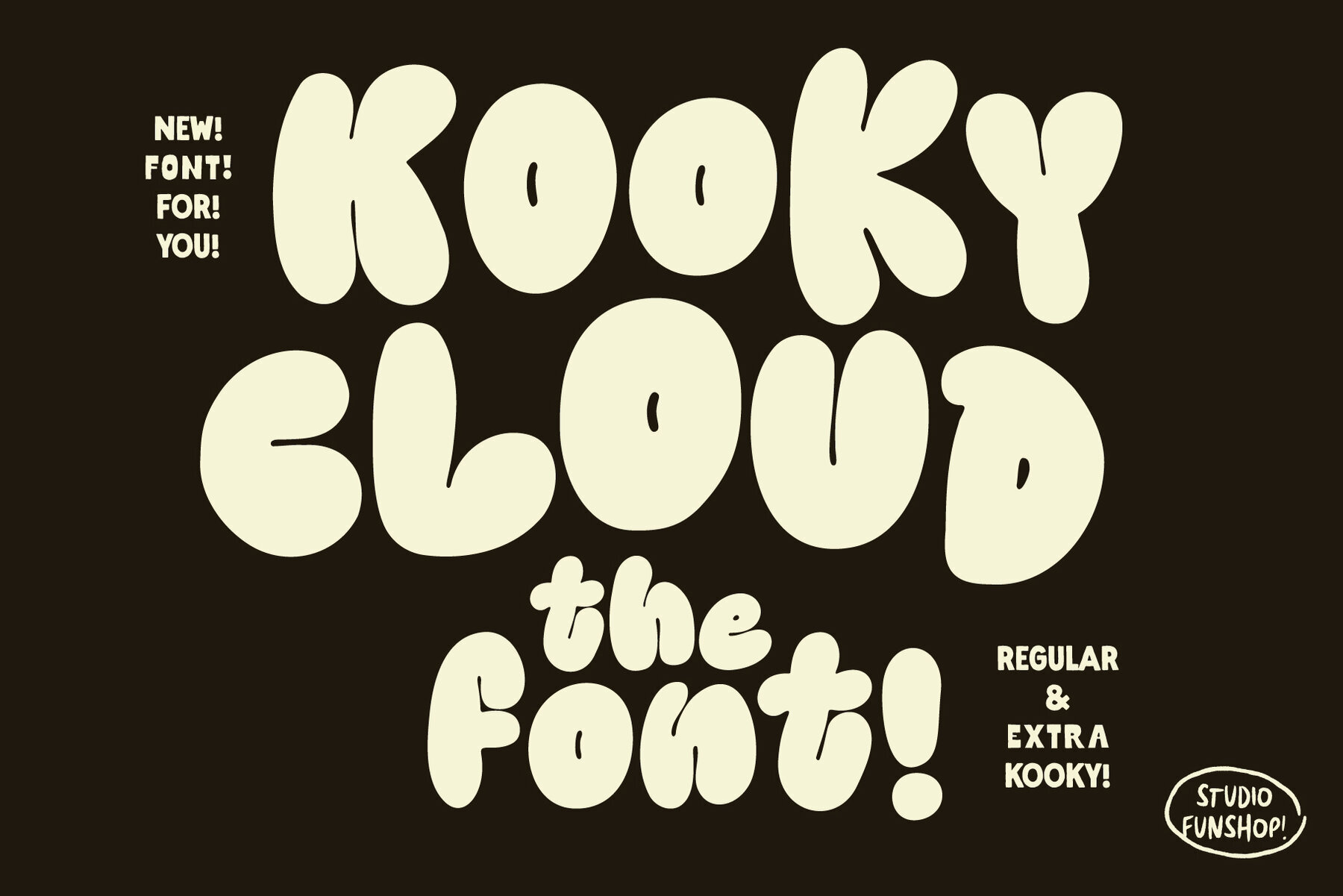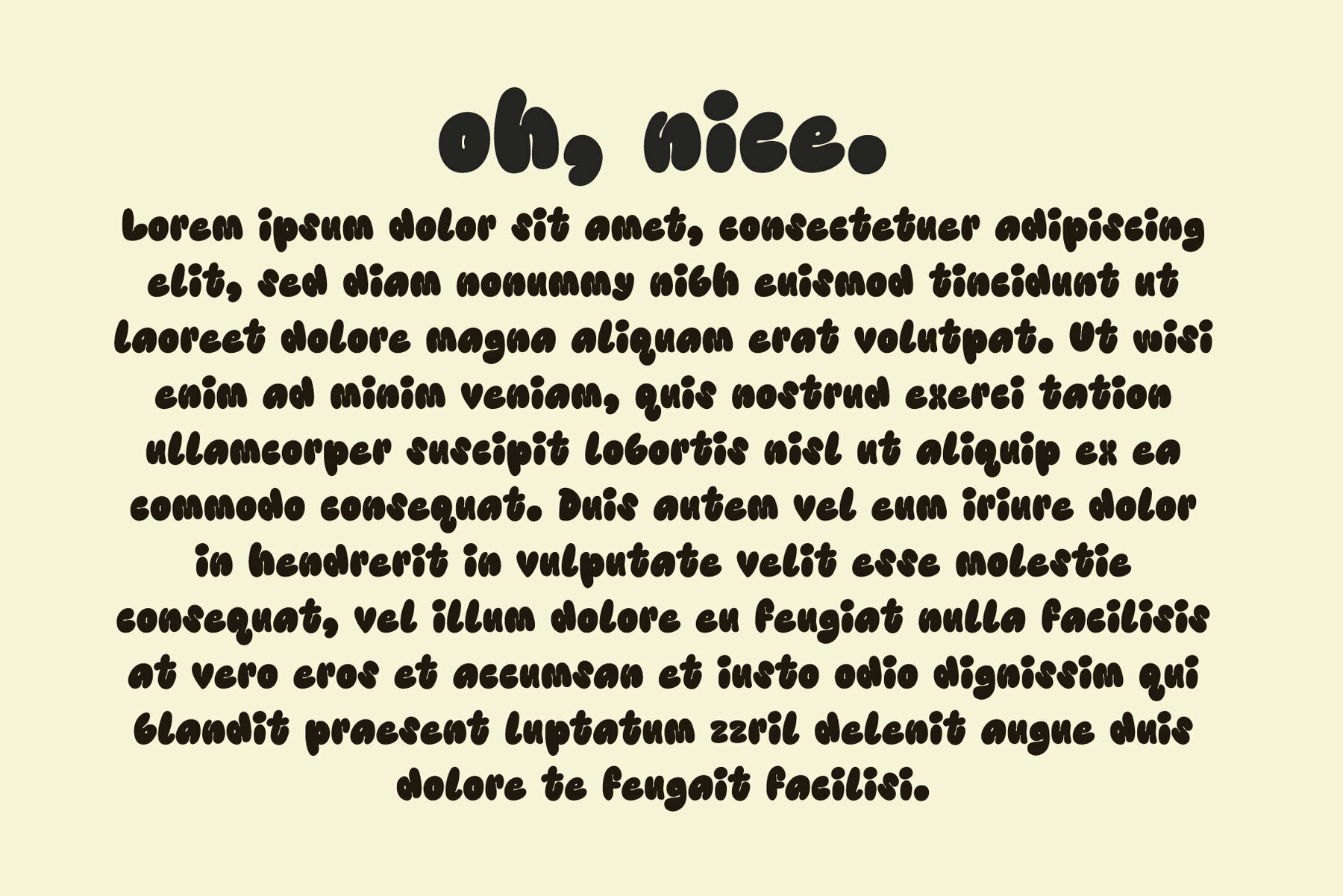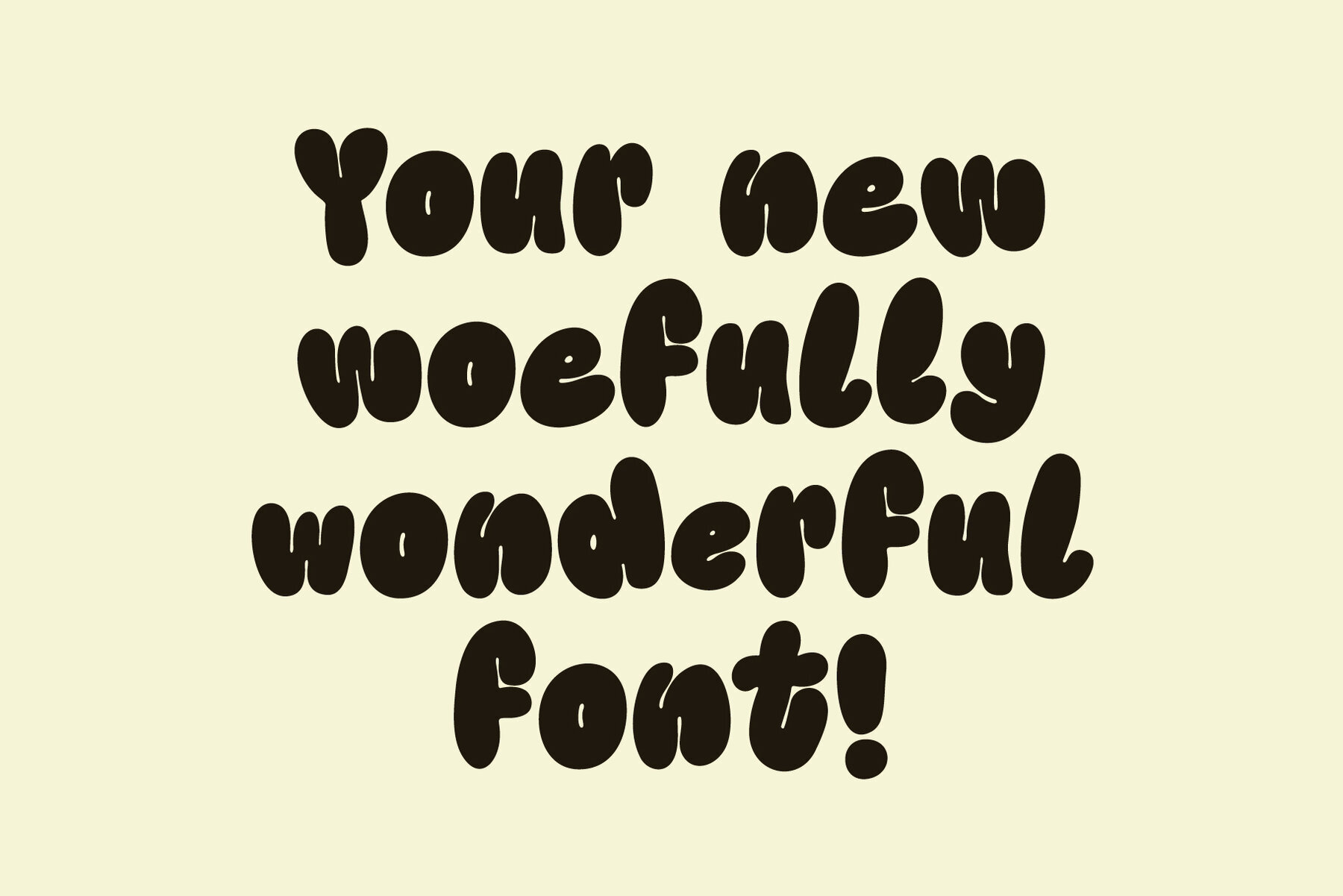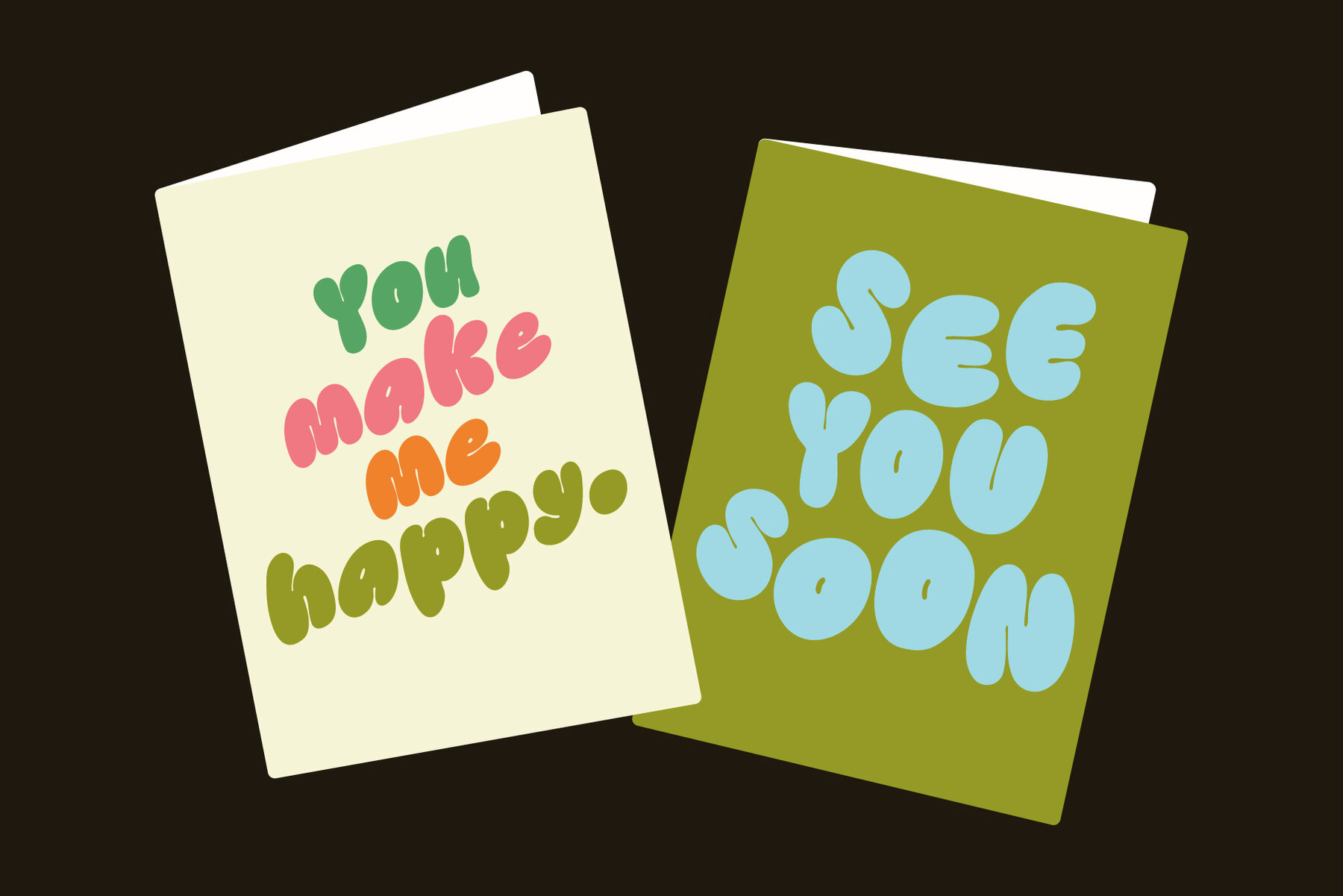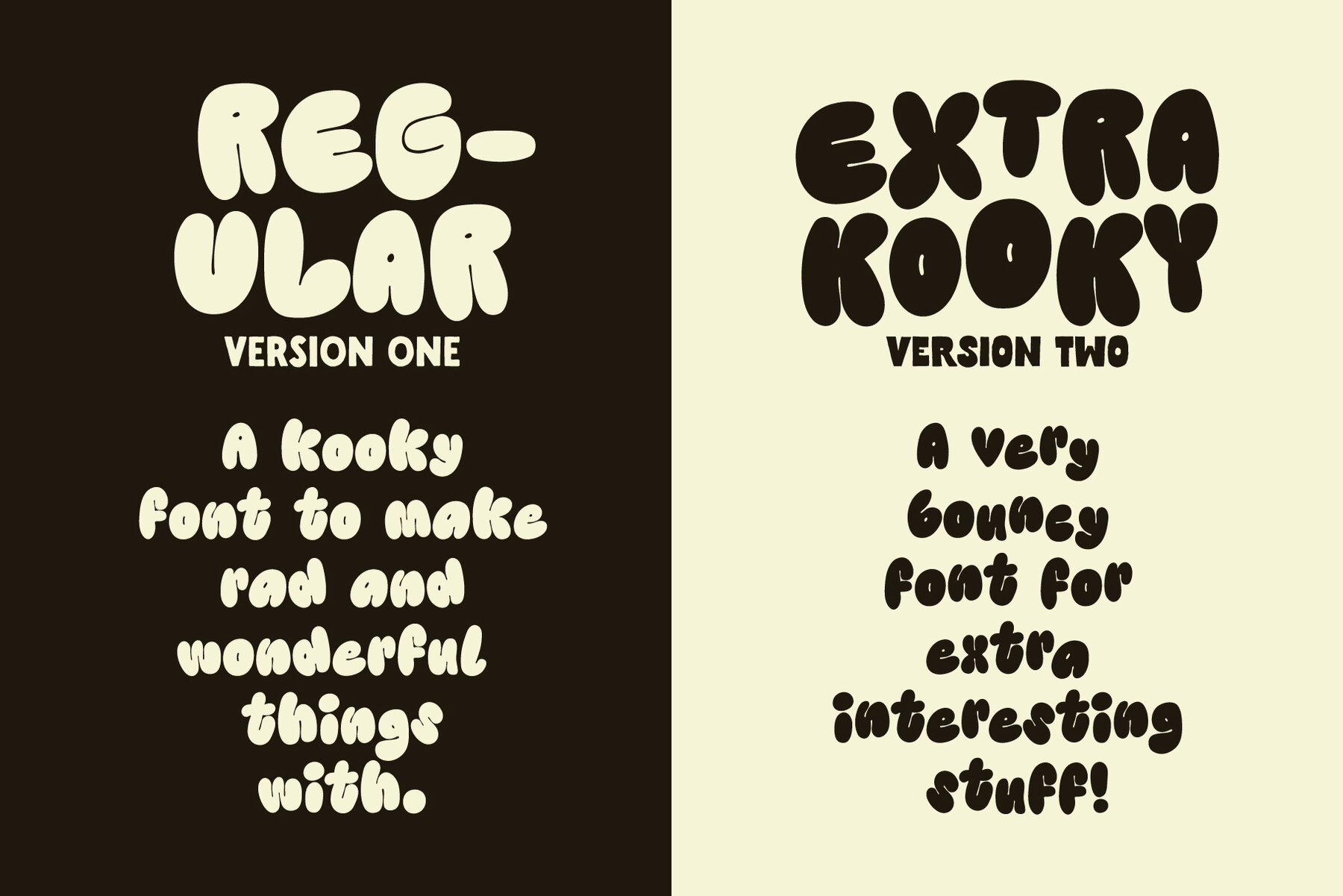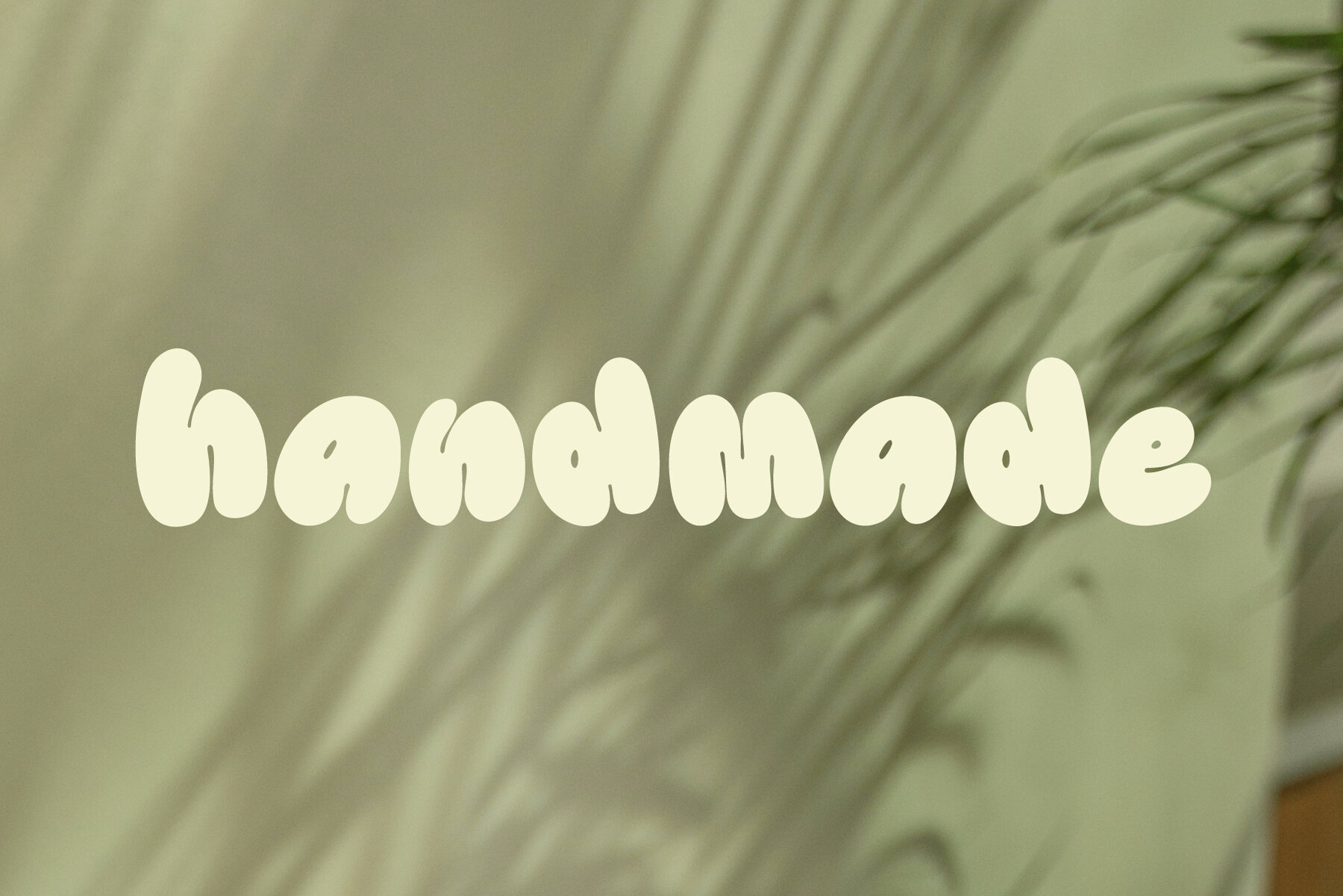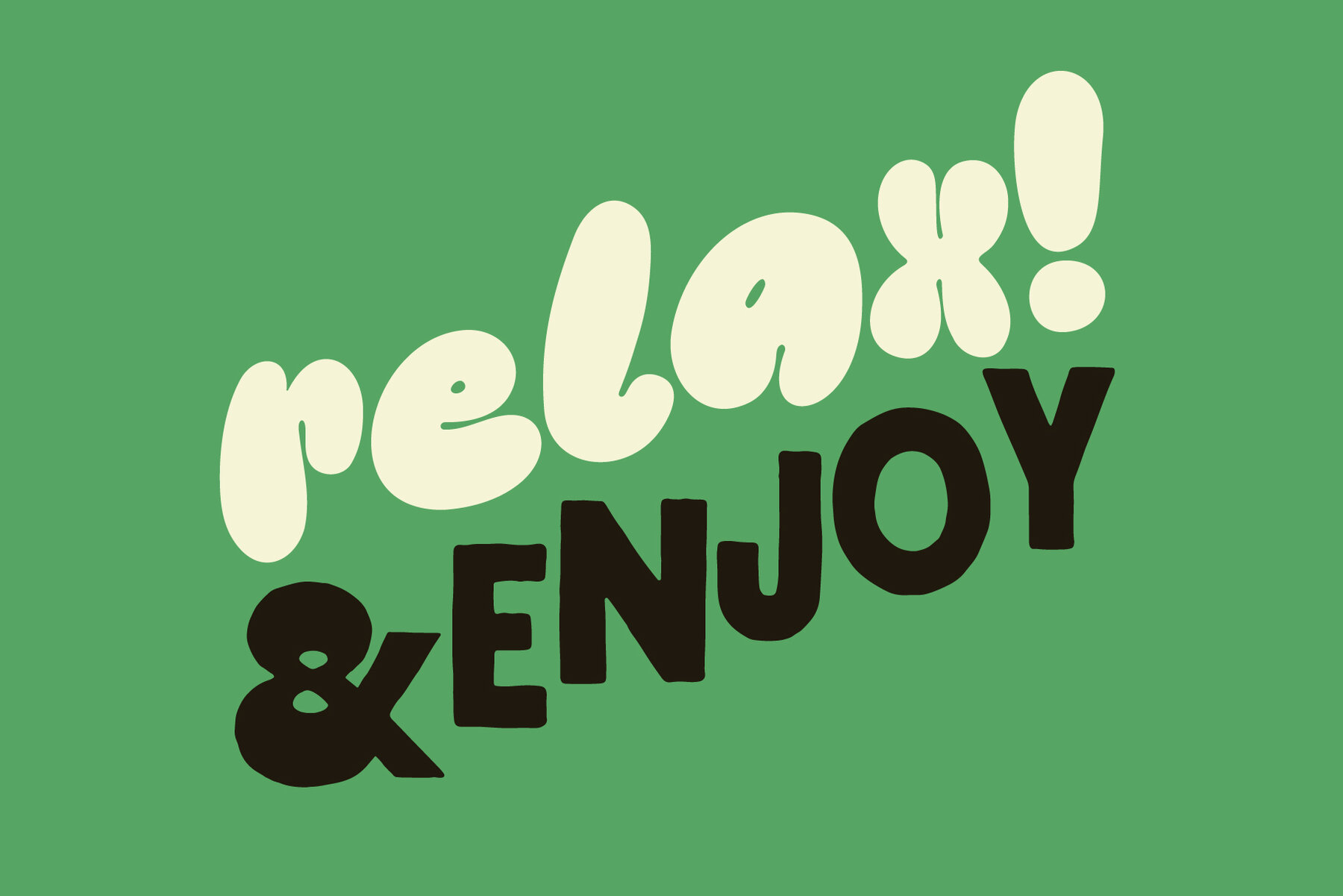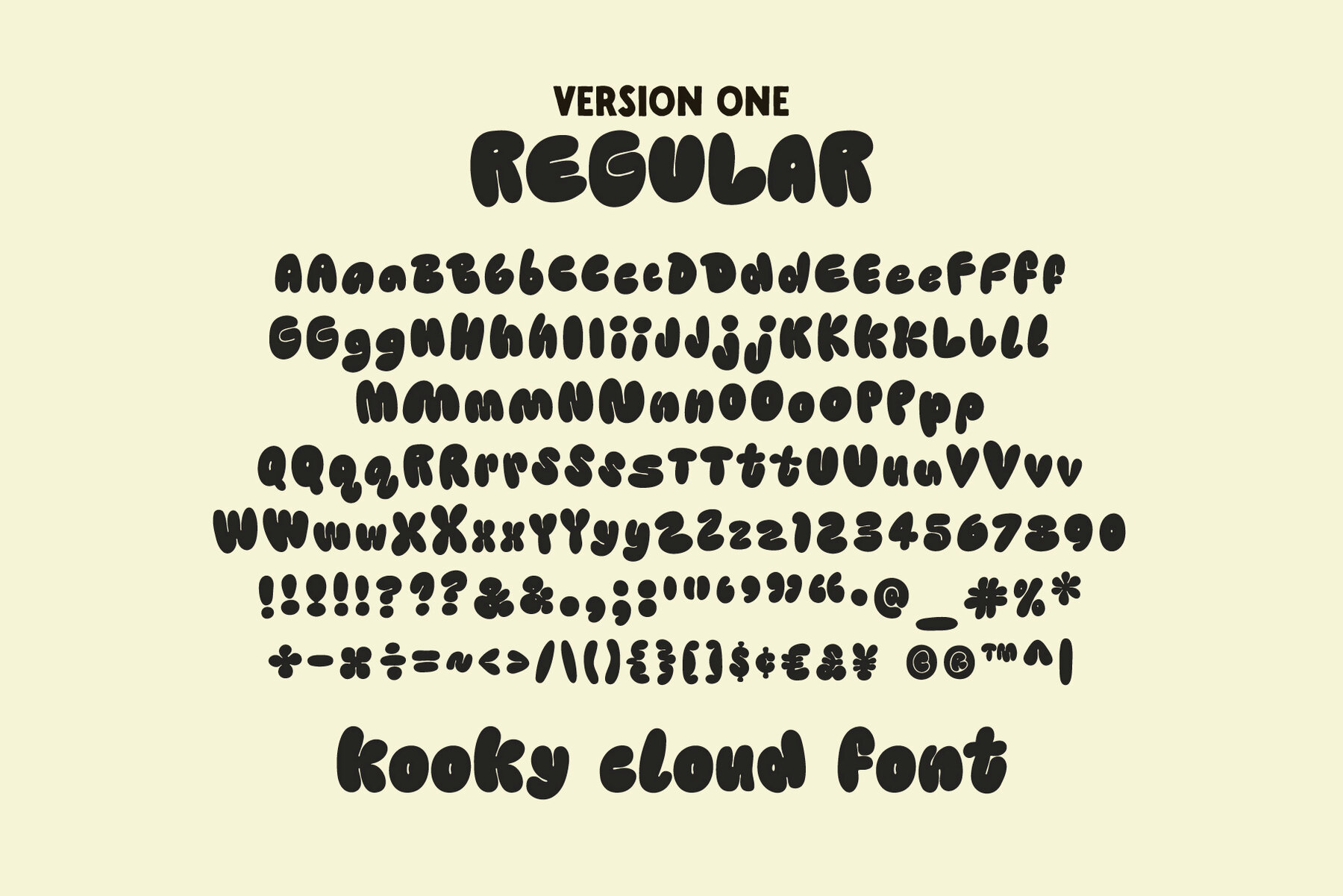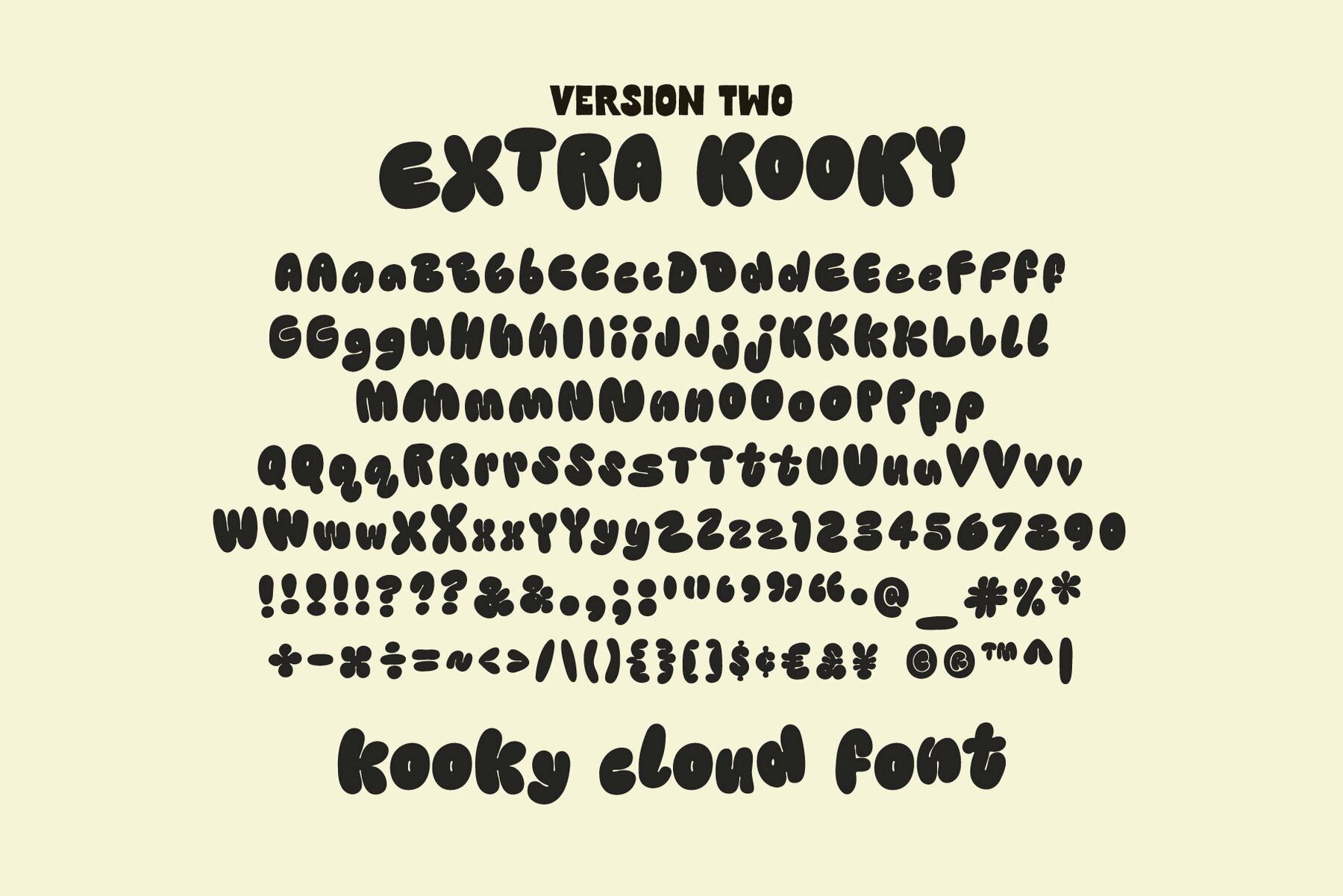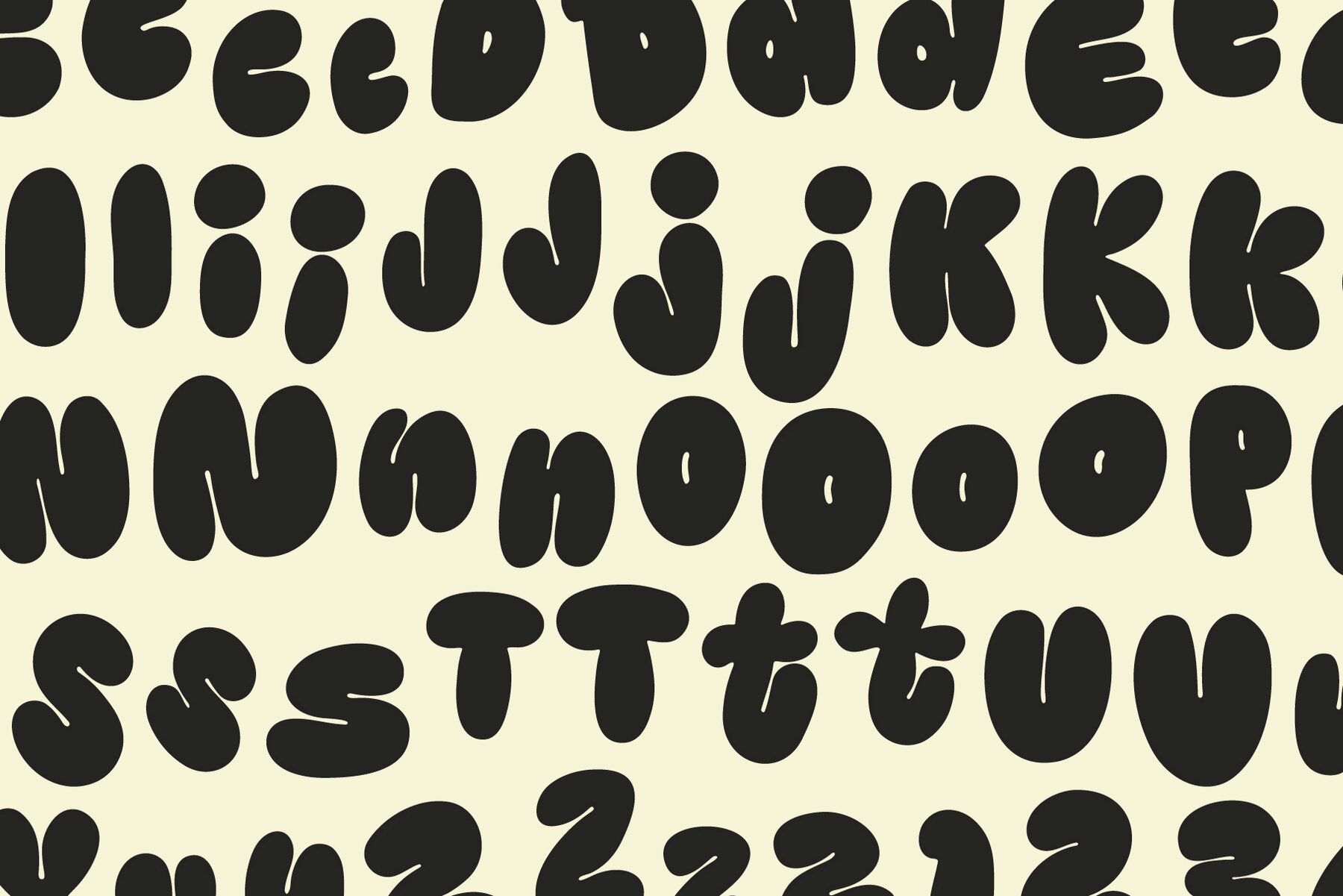
Kooky Cloud Font
Hello Kooky Cloud Extra Kooky
Hello Kooky Cloud
Introducing a font that embodies whimsy and charm with its unique hand-lettered style. Hello-KookyCloud is a bubbly and delightful typeface, perfect for adding a handmade touch to any project. Its distinctive letters include alternate styles for both uppercase and lowercase Aa-Zz, as well as punctuation characters like !, ?, and &. Ideal for logos, quotes, artwork, signs, and titles, it offers a playful aesthetic.Hello-KookyCloud: Playful Hand-Lettered Font